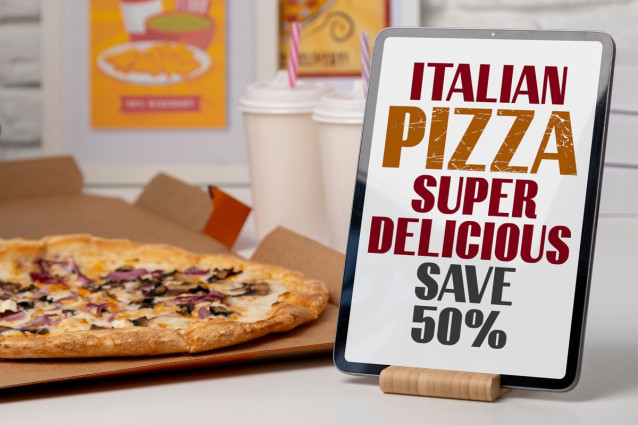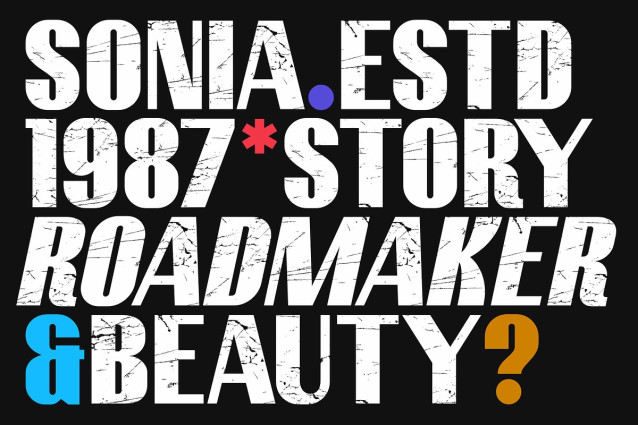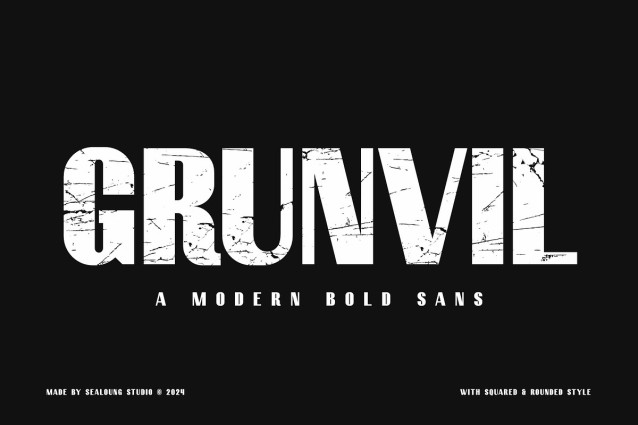
Grunvil Font – Modern Bold Sans with Grunge Style. Elevate your designs with Grunvil, the ultimate font that combines modern boldness with a gritty, grunge twist. Perfect for making a strong statement, this
– Bold and Impactful: Stand out with thick, solid letters that command attention and convey strength.
– Grunge Alternate Style: Switch up your design with an alternate set of characters featuring a rough, textured finish for a raw, urban look.
– Versatile Use: Ideal for posters, headlines, branding, and more, Grunvil adapts to a variety of design needs.
– Easy to Read: Despite its boldness, this font maintains clarity and readability, ensuring your message is always clear.